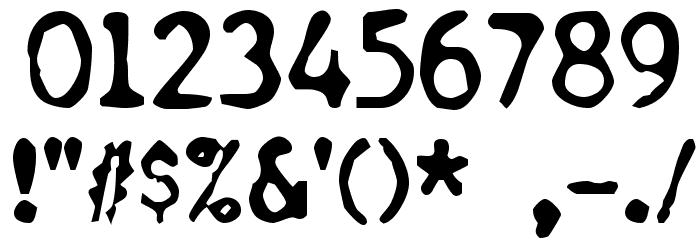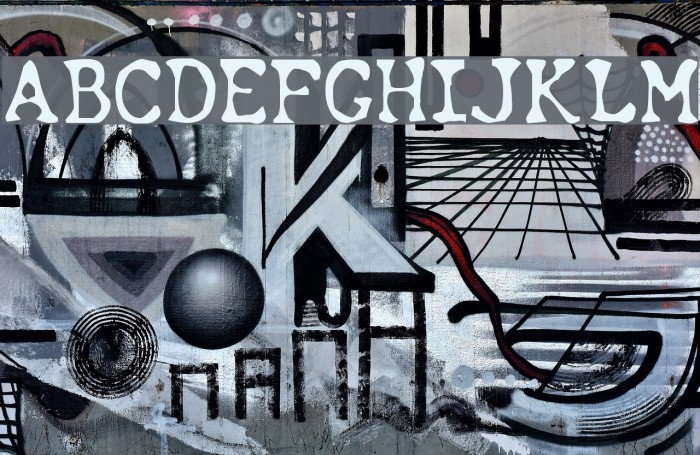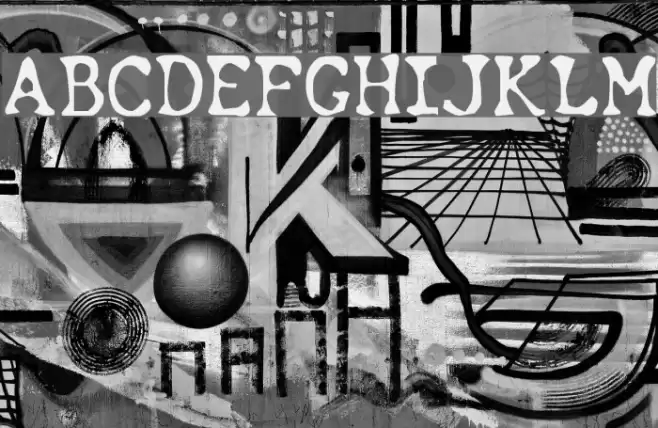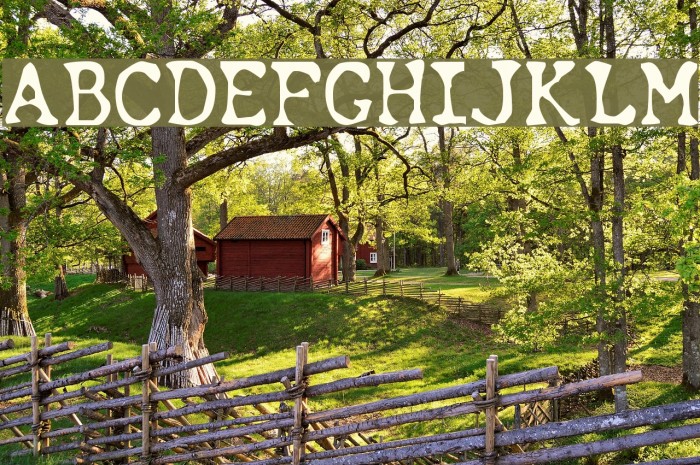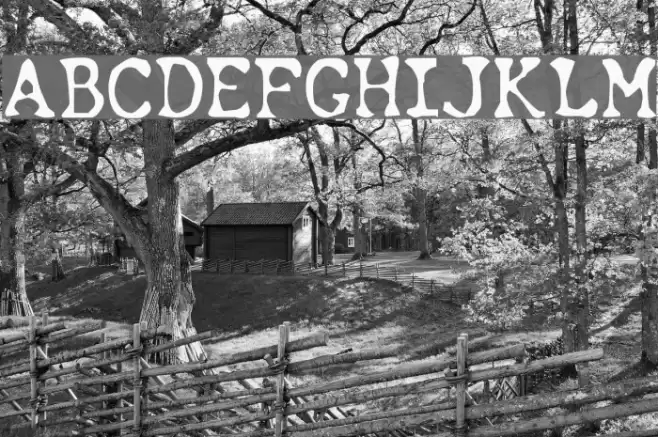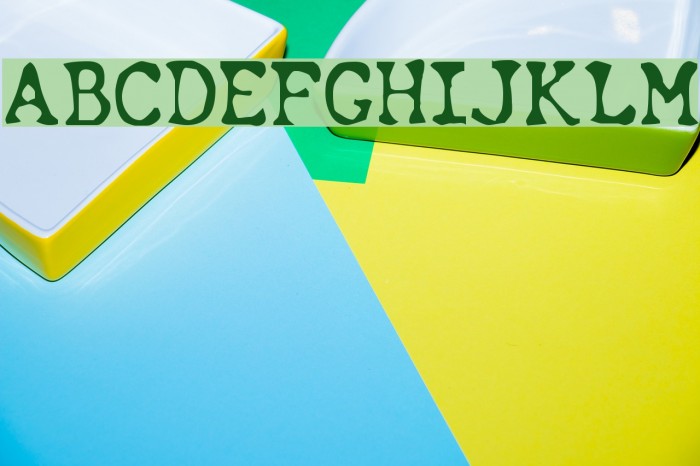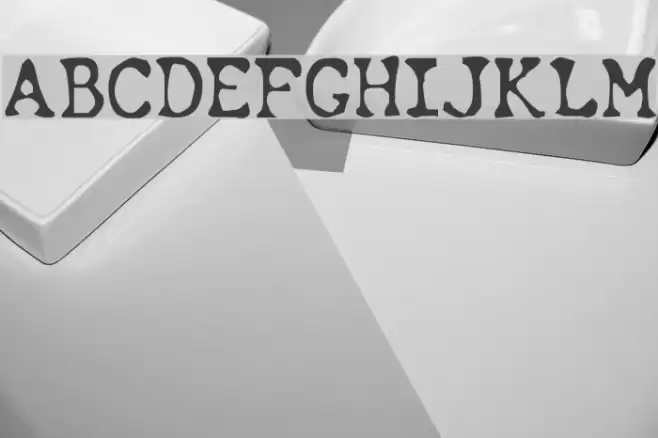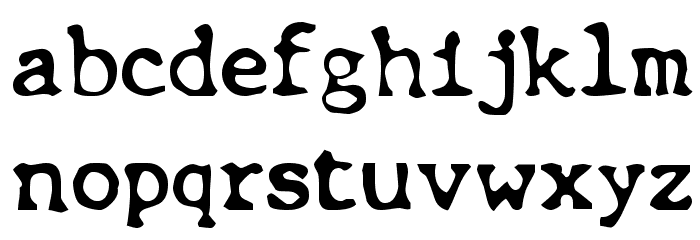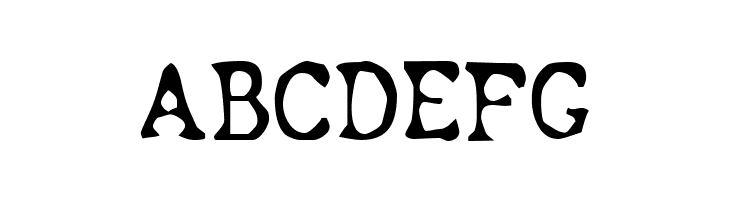
Chunk Type Font
Chunk Type Description
This font features a bold and playful design with chunky, irregular strokes that give it a hand-drawn appearance. The characters are highly stylized, with exaggerated curves and angles that create a whimsical and dynamic look. The uppercase letters are particularly striking, with their bold forms and unique shapes. The lowercase letters maintain the same playful style, ensuring consistency throughout the typeface. Numbers and special characters are equally distinctive, adding to the font's overall charm. This font is perfect for projects that require a fun and eye-catching aesthetic.
| Overall Style | Playful, Whimsical |
| Proposed Projects | Ideal for children's books, playful branding, posters, and creative invitations. |